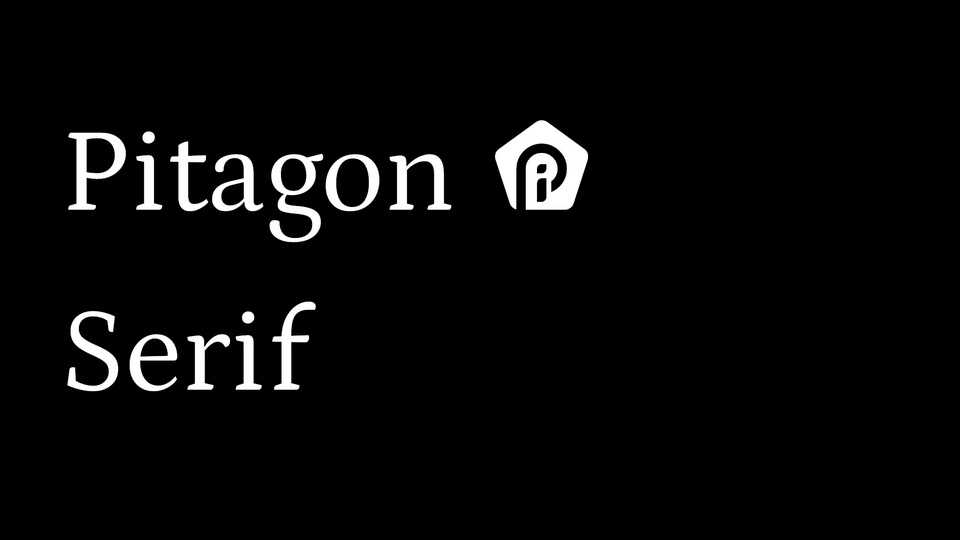
Download Pitagon Serif font, a fresh take on serif styles, contains the Pitagon Design Principles embodied in the Pi Design System. Pitagon Serif is used in the context of specific use of text such as articles, books, magazine, etc.
Designer: Travis Tran